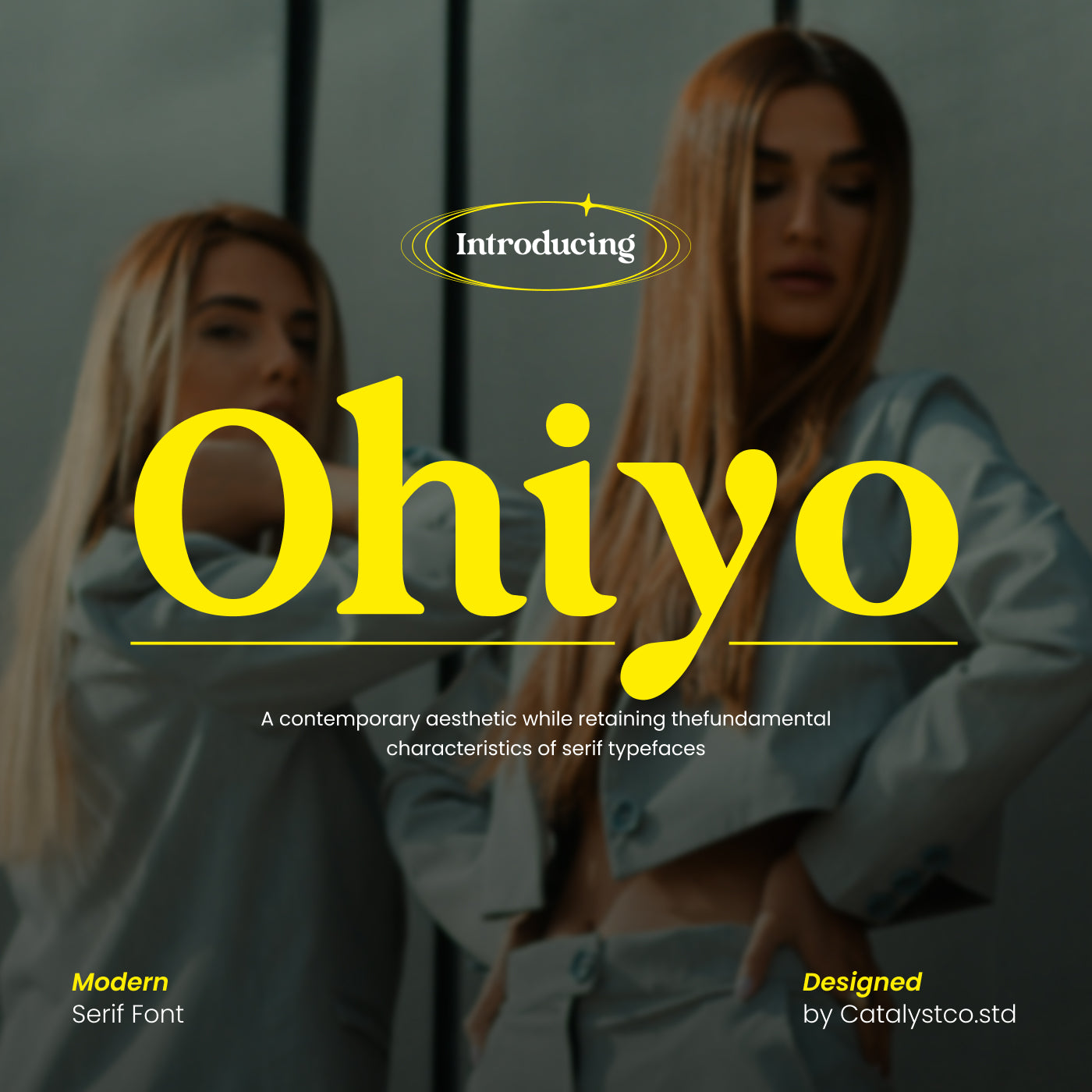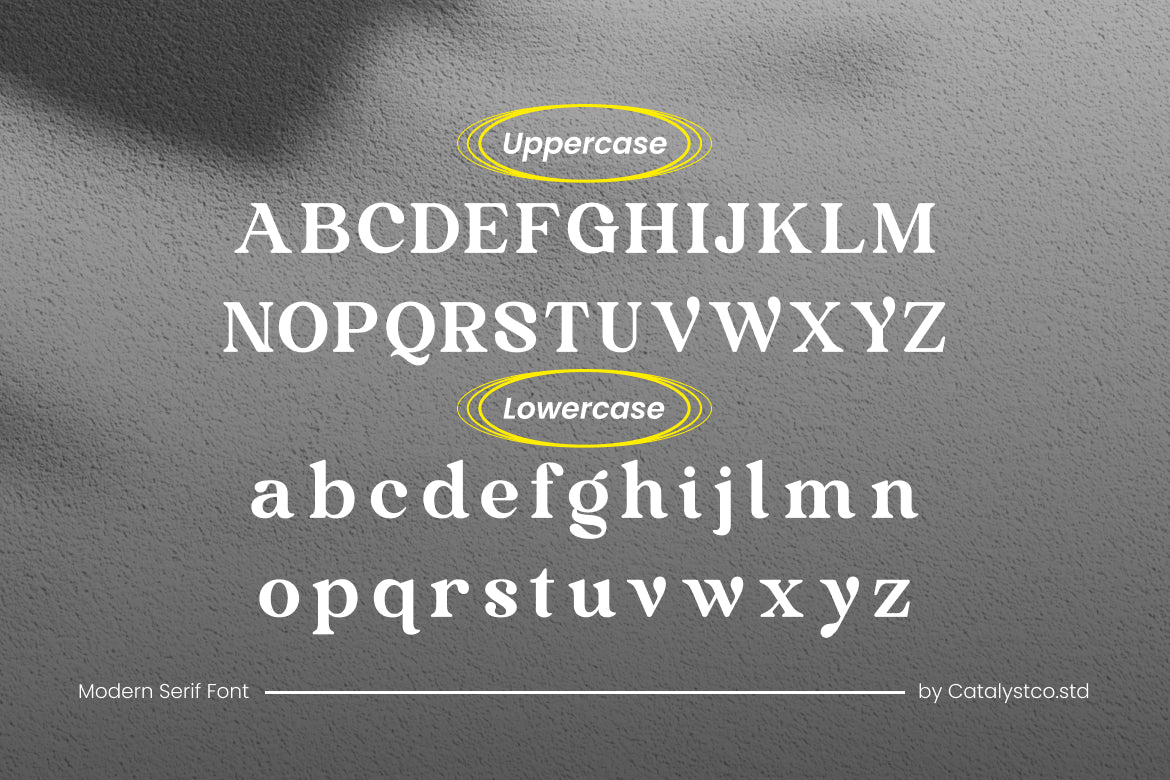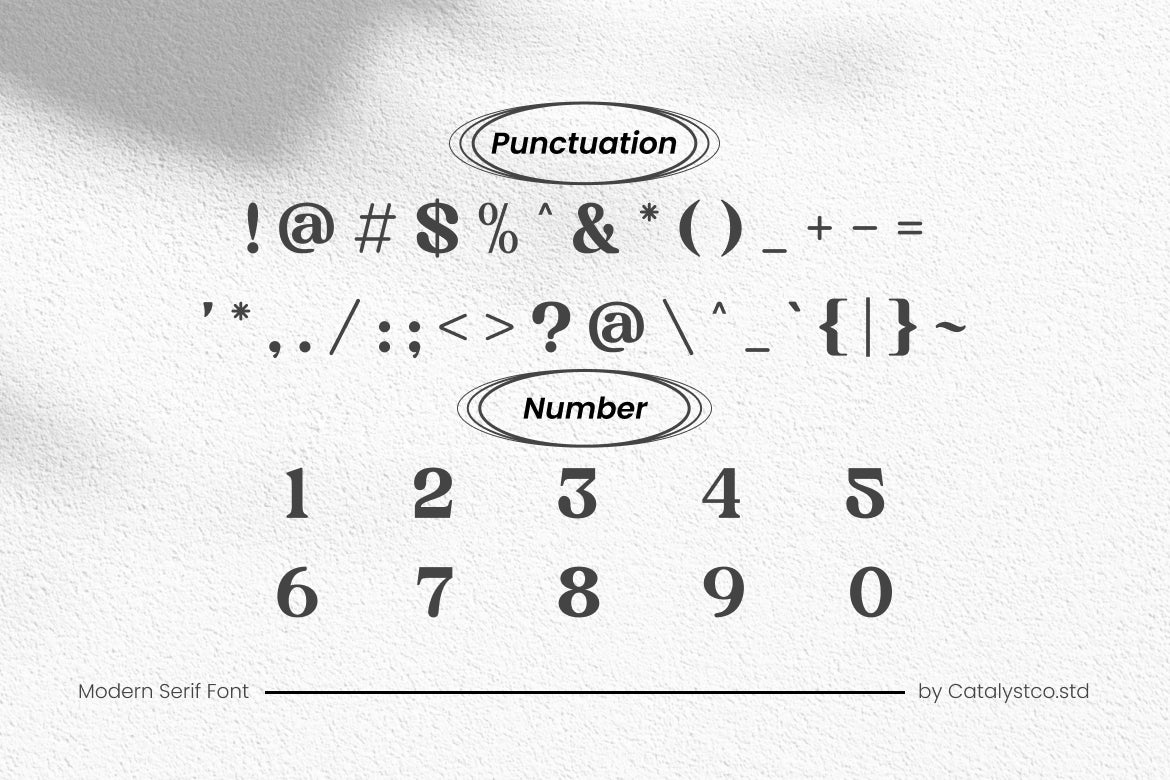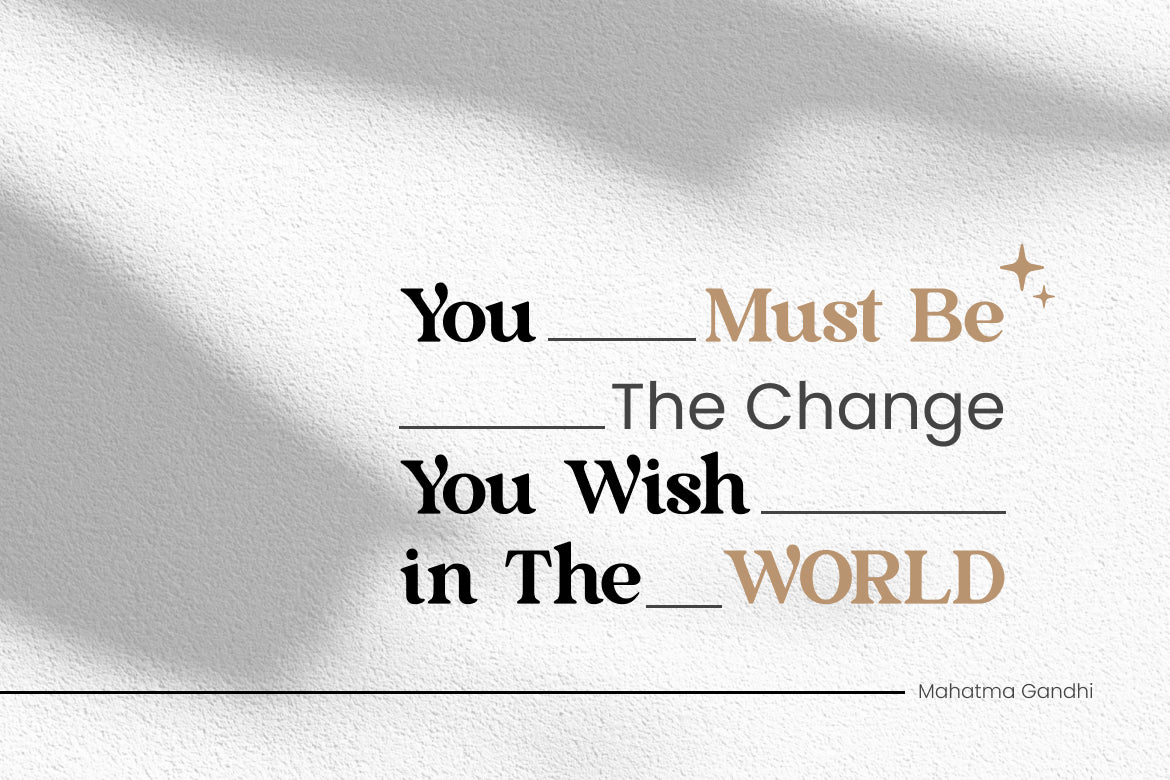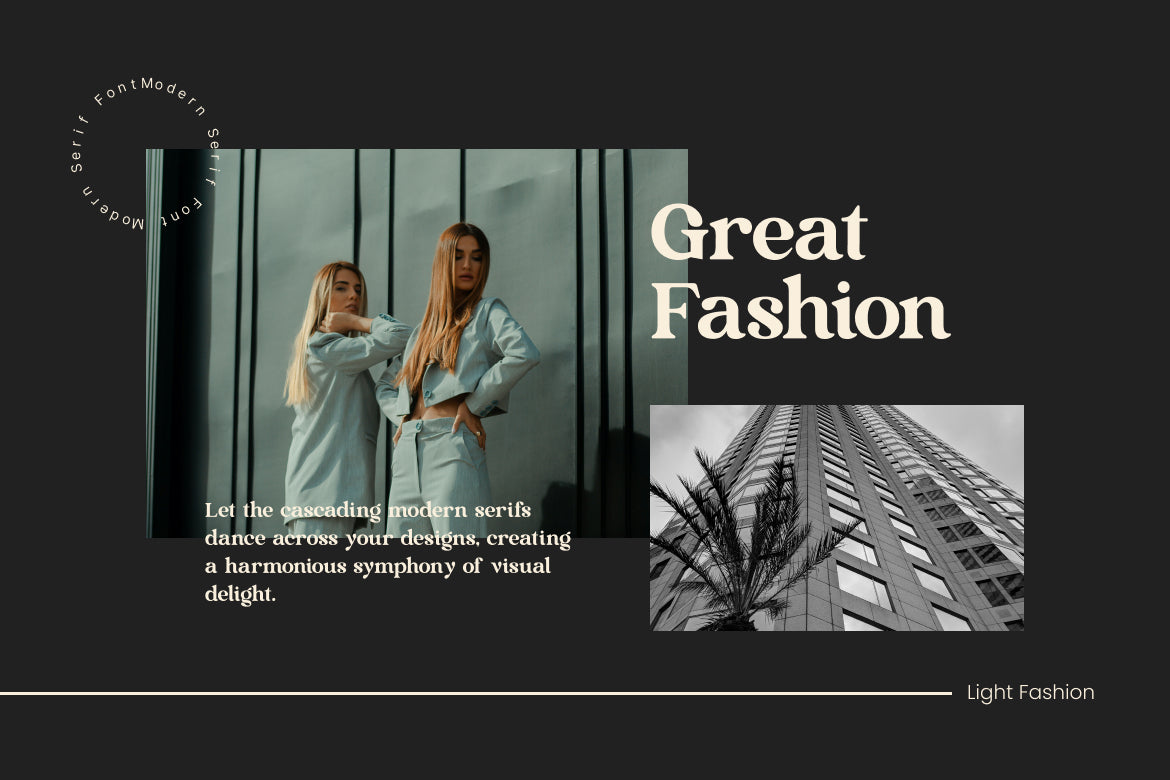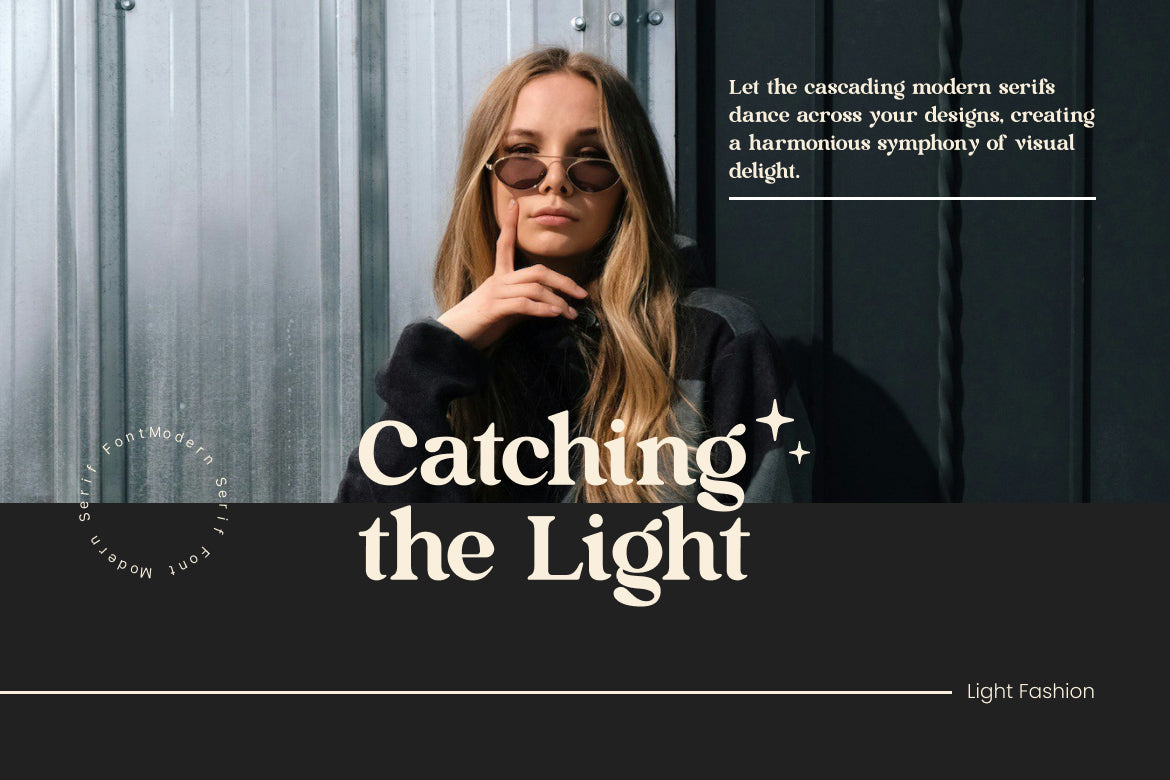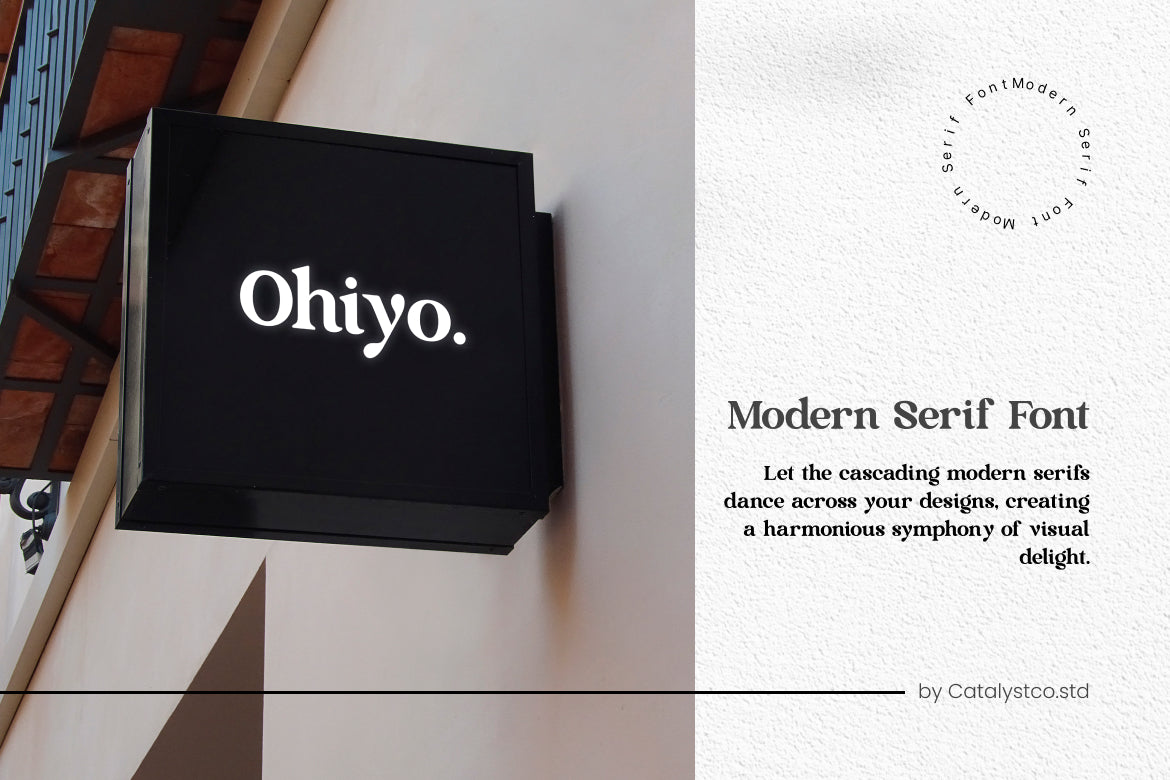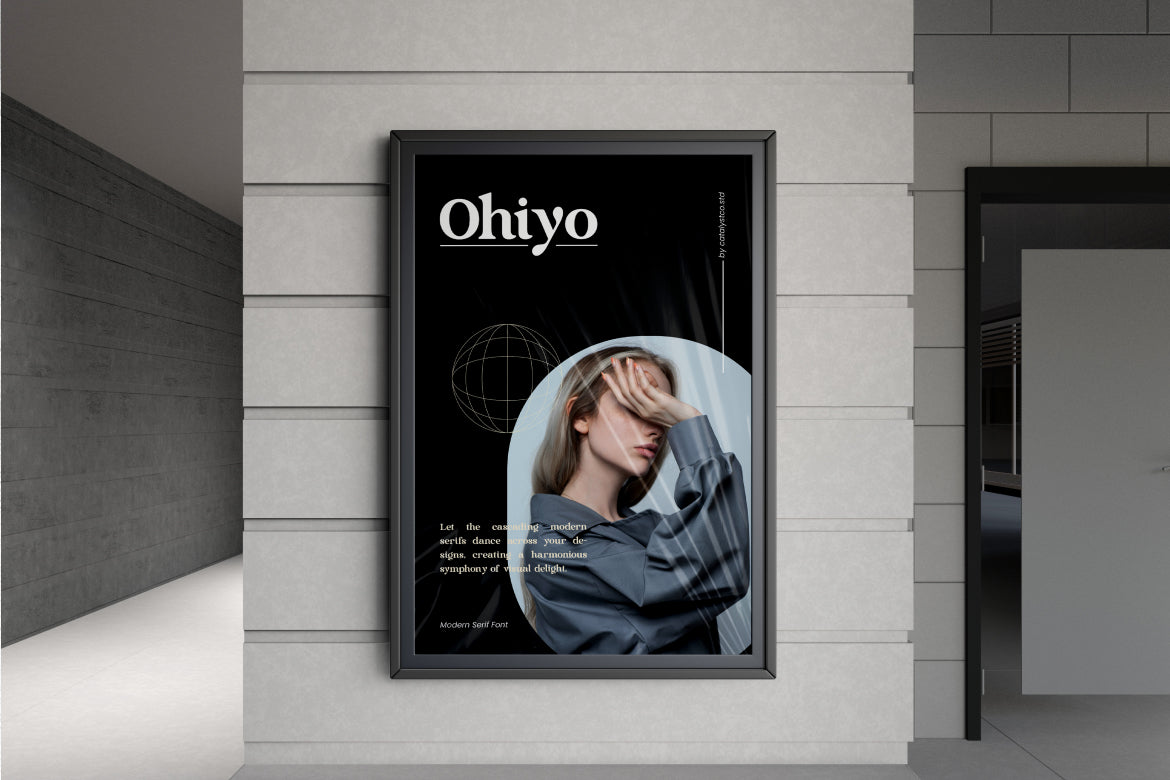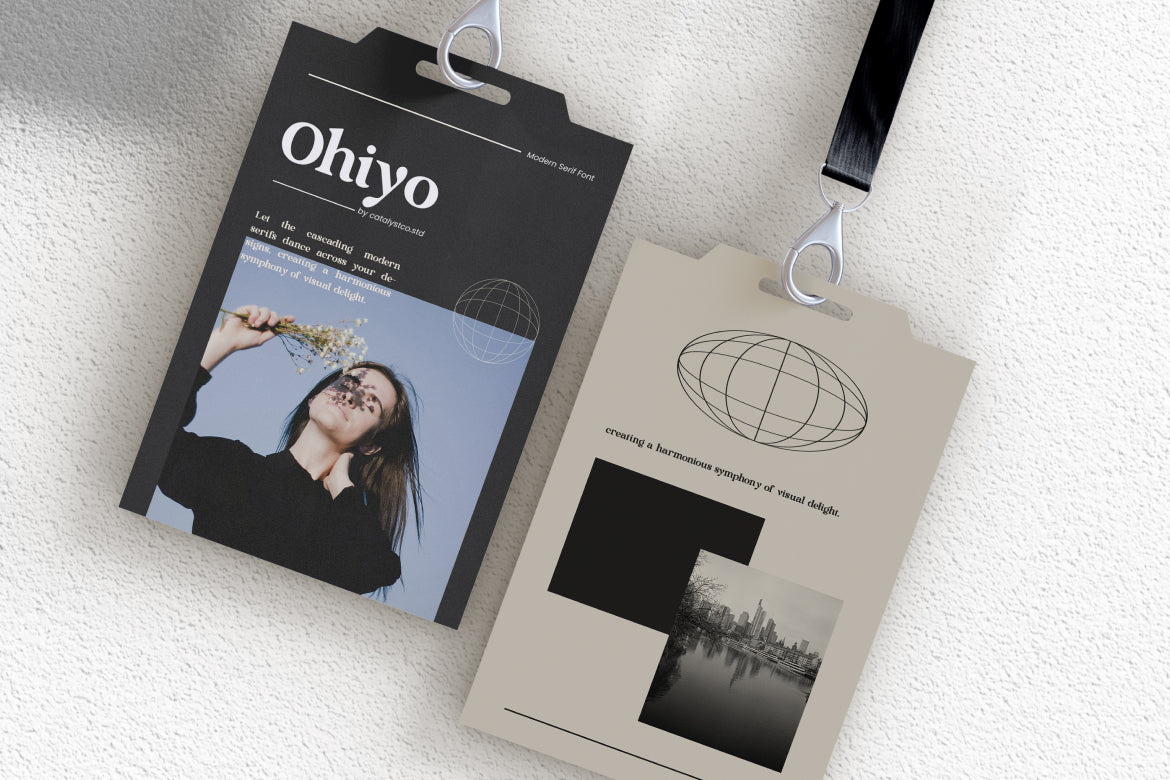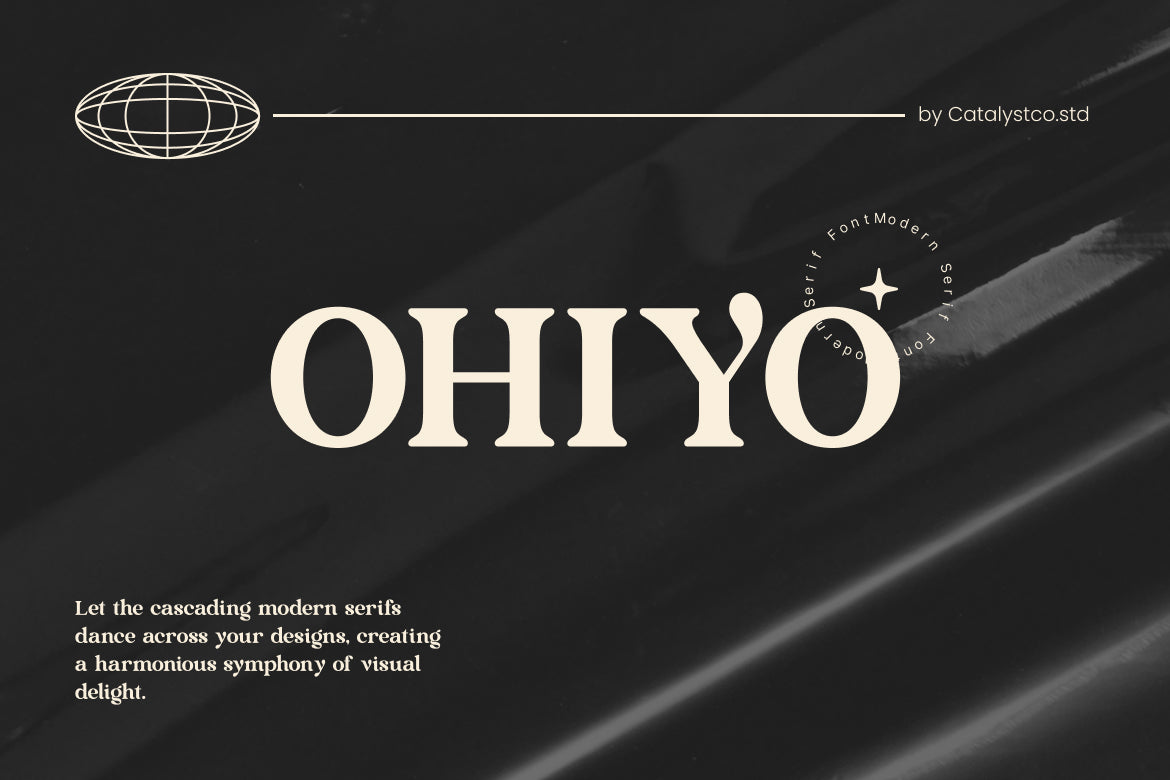
Ohiyo Modern Serif Font
Ohiyo is a modern serif typeface designed with elegant curves, refined proportions, and a contemporary editorial aesthetic. Its clean serifs, soft contrast, and stylish letterforms create a polished visual identity suitable for luxury branding and modern communication. Balancing classic serif structure with fresh, fashionable details, Ohiyo delivers a distinctive and mature presence across any layout.
Perfect for designers seeking a premium serif font with sophistication and modern appeal, Ohiyo enhances logos, headlines, magazine layouts, product packaging, and visual brand storytelling. Complete with uppercase, lowercase, numerals, and punctuation, it offers seamless versatility for professional design needs.